dot-font: Front-Page Fonts
The recently formed Ascender Corporation has done something useful: They provided us with a snapshot of the fonts in current use on the front pages of American newspapers. In a report called “Fonts on the Front Page,” based on a study of the top 100 U.S. papers (by circulation), Bill Davis of Ascender summarizes the most frequently used typefaces, who designed them, where they came from, and whether they were custom designs or not. This is a practical reality-check for type designers who aim to supply fonts for the newspaper market, and also for newspaper designers.
Ascender Corporation was founded by former type designers and type marketers from Agfa Monotype (now Monotype Imaging), several of whom have specialized in developing fonts for the screen, so it’s not surprising that in this report Davis gives some attention to online editions of newspapers, and the challenges of reproducing the “brand” image of a paper onscreen when the typefaces (and the layout) were designed for the printed page. Just as typeface designs for the screen are developed with that particular use in mind, typefaces for newspapers—especially text faces—are developed for the particular conditions of fast presses and ink on newsprint. Each is a very specialized kind of design.
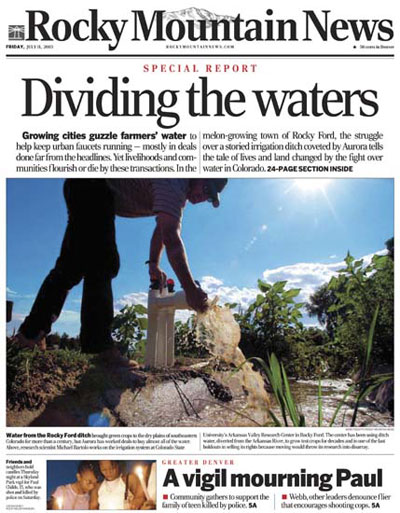
Figure 1: A front page from the “Rocky Mountain News”; the primary typeface is a custom design, called Rocky, by Matthew Carter.
Big and Small
The study makes no distinction between text faces and display faces, although in many cases it’s easy to sort them out. (It seems unlikely that Interstate, for instance, is being used as a text face. Though I could be wrong.) There’s also a third category: symbol and dingbat fonts, including barcodes. These are easy to identify.
There are a few inconsistencies in the classification of typefaces. Helvetica and Helvetica Neue are listed separately, as they should be, but there’s no distinction between ITC Franklin Gothic and other versions of the face. “Swiss” is not a typeface or a family but an entire category of typefaces, in Bitstream’s naming system. The Poynter Series is lumped together as though it were a single typeface super-family, instead of three families that work together. And any time I see the typeface name “Garamond” without qualification, I get suspicious; there are too many different typeface families with this name, and they’re not interchangeable. But what the study’s data does tell us is how often these retail fonts have been renamed or modified for individual newspapers—quite often, it turns out.
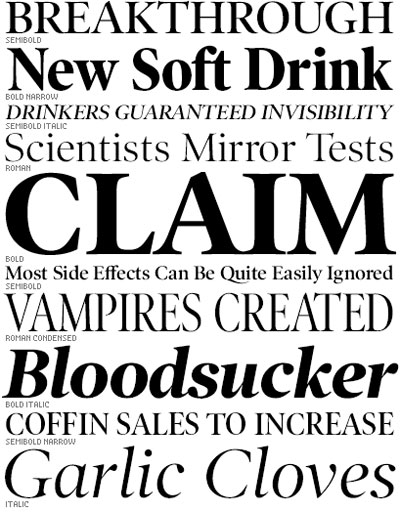
Figure 2: Poynter Old Style Display, one of the several typeface families that make up Font Bureau’s Poynter Series of faces designed for newspapers
One of the most interesting bits of information in the report is the number of newspapers that use custom fonts, designed specifically for them. As Davis puts it, “Each of the top seven newspapers analyzed used custom fonts produced for them by leading type designers and foundries. But custom fonts are not just the domain of the leading papers, as medium- to large-circulation newspapers were also found to use custom fonts.” Since the study tracks the designers and sources of the fonts used, Davis can conclude, “The Font Bureau was the leading source for custom fonts, followed by Carter & Cone, Jim Parkinson, Gerard Unger, and Christian Schwartz.”
Font Bureau also comes in first in the list of most popular type foundries or designers (including both custom and retail fonts). Second is Adobe, counting only its Adobe Originals typefaces (not all the fonts from other foundries that they sell or have sold). The next three are Linotype, ITC, and Bitstream, but after that you start finding much smaller type foundries, such as Hoefler & Frere-Jones, Carter & Cone, and ShinnType. (Jonathan Hoefler pointed out to Davis that his foundry’s typefaces are more often used on the interior pages of newspapers, rather than the front page, so this study doesn’t necessarily give a comprehensive view. Specialized typefaces such as Retina, designed for the small print of financial listings, are rarely used on the front page.)
Top Ten
Most of the information in this study was garnered by analyzing the fonts embedded in PDF files of each newspaper’s front page. This can skew the results, however, because of default fonts or fonts that are left over in the digital file but don’t actually appear in print. Davis explains the problem: “The analysis of PDF files revealed that Helvetica, Times, and Zapf Dingbats were among the top five typefaces. This is not surprising, as these fonts are standard on Macintosh/PC systems with Adobe Type Manager and in Adobe Acrobat. Helvetica or Times appear as the default font in many publishing software packages, so it can appear on a page that has an empty text box. In our review of the PDF files, we found half of the occurrences of Helvetica and Times to fall into this category.” Once they had corrected for the inflated appearance of Helvetica and Times, as well as for extra sightings of Zapf Dingbats and other Pi and Bar Code fonts, Ascender came up with a list of the 10 most popular typeface families in American newspapers.
And what are they? In order:
- Poynter Series
- Franklin Gothic
- Helvetica
- Utopia
- Times
- Nimrod
- Century Old Style
- Interstate
- Bureau Grotesque
- Miller
Figure 3: Nimrod, designed in 1980 for Monotype by Robin Nicholas, which has been used almost exclusively for newspaper text
Extending the Brand
It would be interesting to see a comparable study of the usage of typefaces on the front pages of newspapers in Europe, and elsewhere in the world. Some type designers whose names don’t show up here would undoubtedly be prominent in a European study (Lucas de Groot and Jean-François Porchez leap to mind), but my impression is that, except in a handful of very large newspapers, custom fonts are a much rarer thing in Europe. On the other hand, many newspapers use retail fonts that began life as custom typefaces before they were released to the general market. And then, there are simply differences in taste.